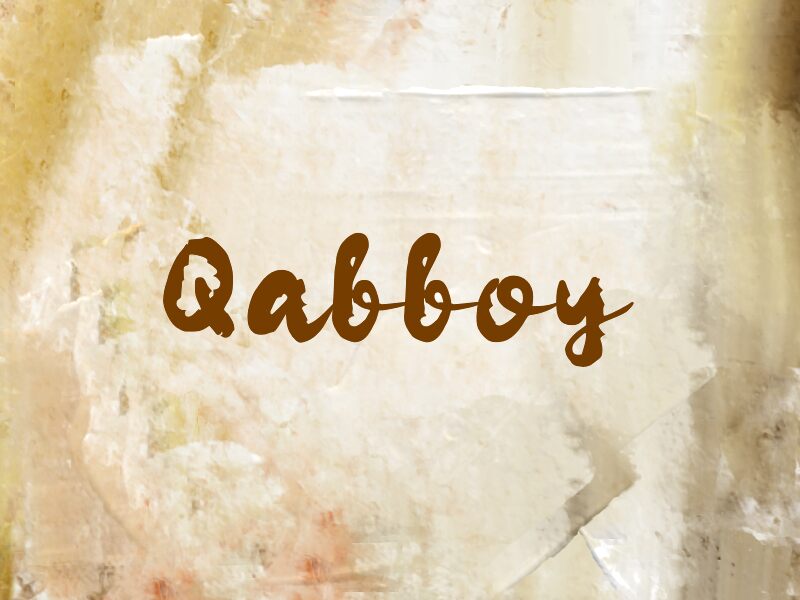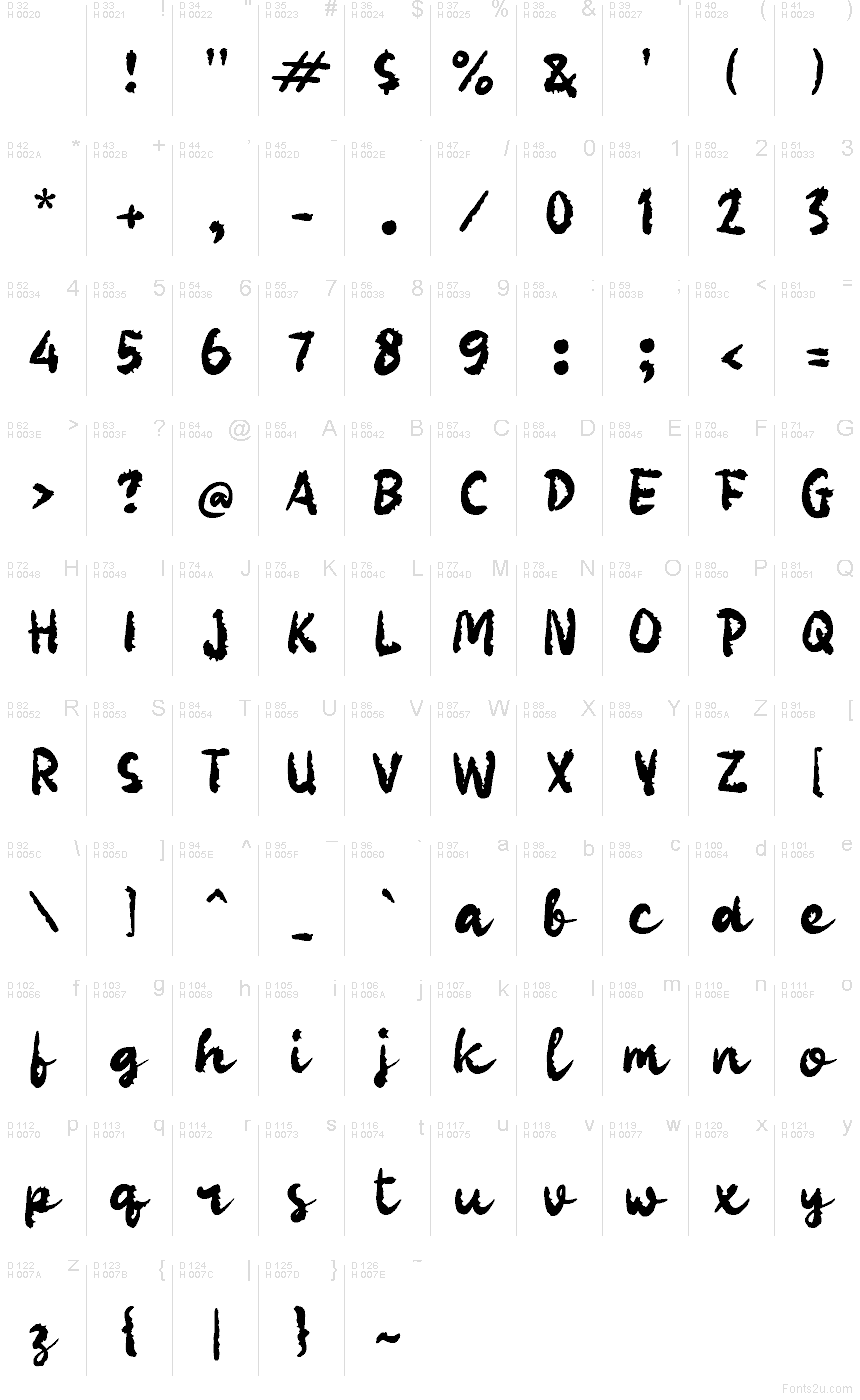
Qabboy
Qabboy font by wepfont.com is a free brush script typeface that feels like it’s been painted straight onto the page with thick, inky strokes. The bold, blobby curves and looping connections give it a messy-in-a-good-way energy—casual, loud, and a little rebellious. It looks like street art crossed with a handmade sign, with dense black shapes that read clearly even at a glance.
Using Qabboy, you can give posters, YouTube thumbnails, merch designs, food packaging, album covers, and event flyers a raw, hand-lettered punch. This free font thrives in big, attention-grabbing titles, while a clean sans serif underneath handles the small supporting text. Keep Qabboy large and generously spaced so those inky strokes and playful swirls have room to breathe.